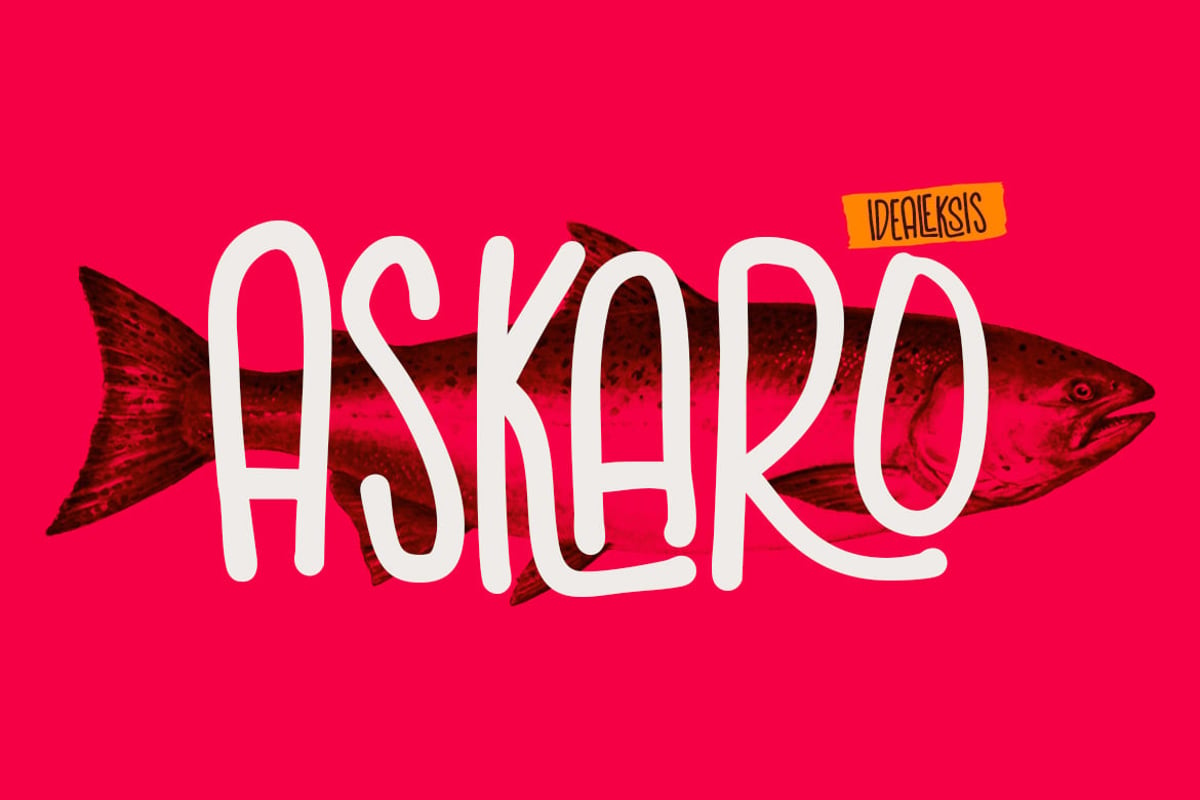
Askaro - Food Font
Bring warmth and personality to your culinary designs with this tall, condensed handwritten script font.
The typography features a playful and organic energy with consistent stroke weights that resemble a thick felt-tip marker. Soft, rounded terminals create a friendly and approachable aesthetic that's perfect for food-related branding.
Perfect for:
- Bakery and café branding
- Food and beverage logos
- Restaurant menus and signage
- Coffee shop and donut shop designs
- Food packaging and labels
- Social media food promotions
- Kitchen-themed posters and prints
- Culinary blogs and recipe graphics